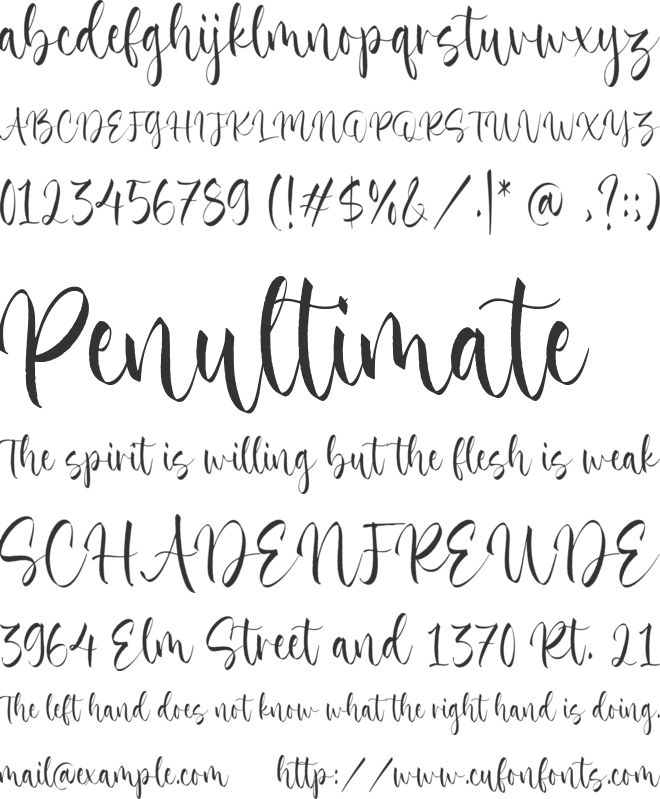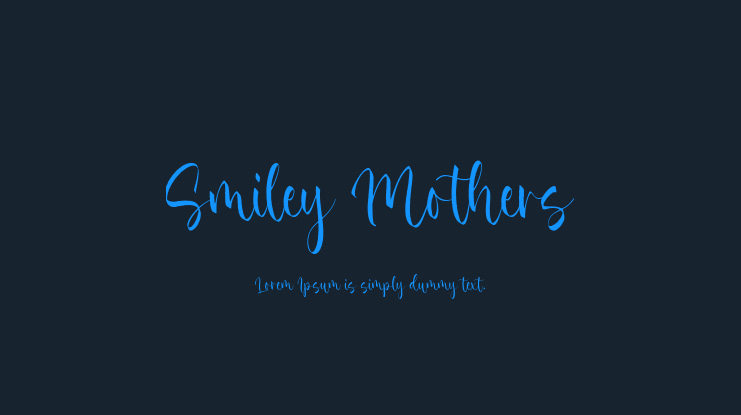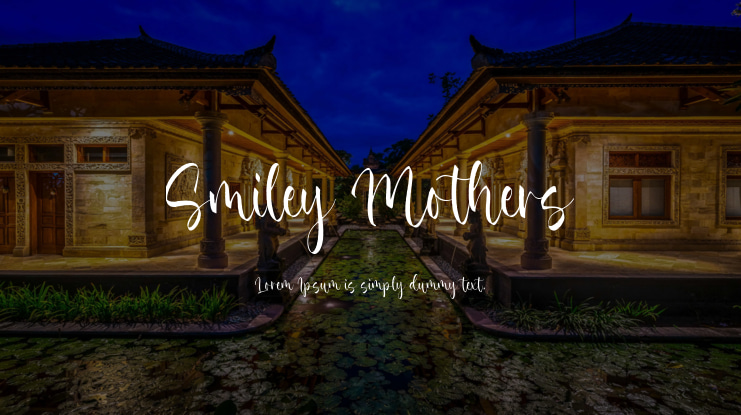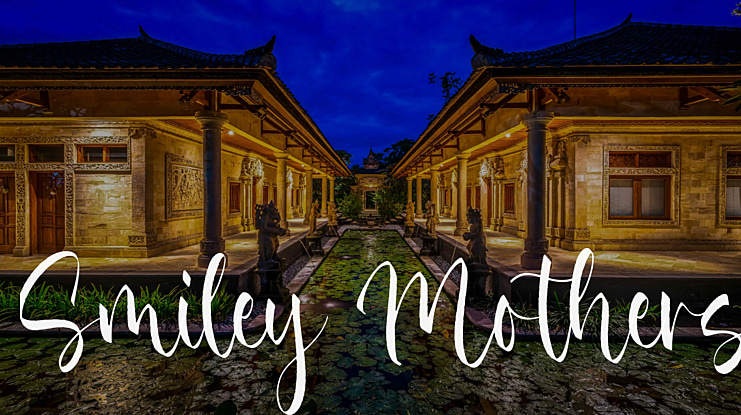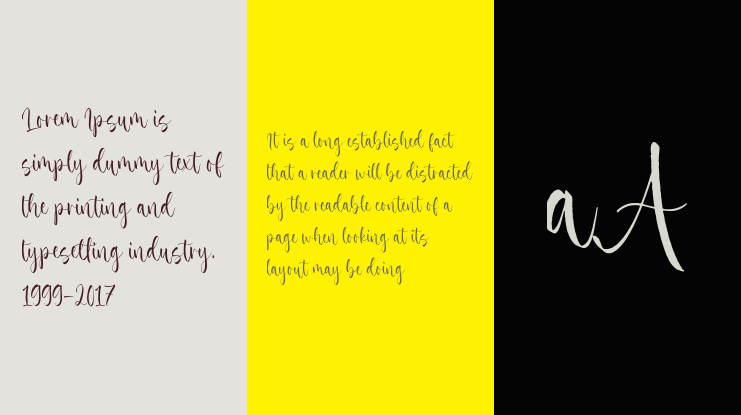
Introducing Smiley Mothers - Handwritten font, a modern and fresh script font that will add a warm and inviting touch to your business. Discover the magic of this font and see for yourself.
Smiley Mothers - Handwritten font is perfect for various projects such as product packaging, branding, magazines, social media, weddings, or simply for expressing words over a background.
The premium features of Smiley Mothers - Handwritten font include: